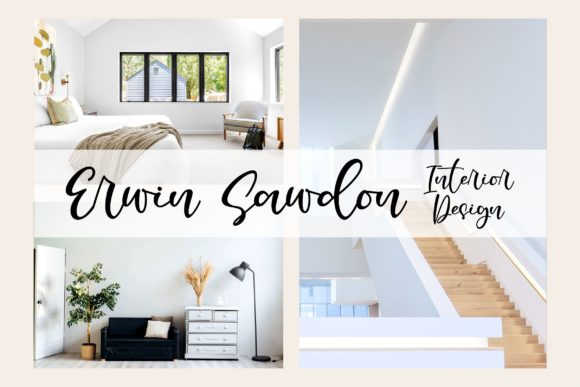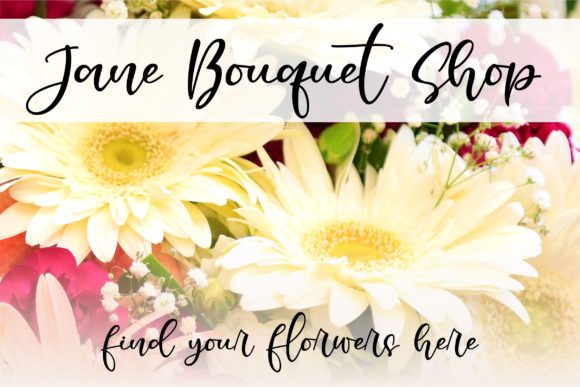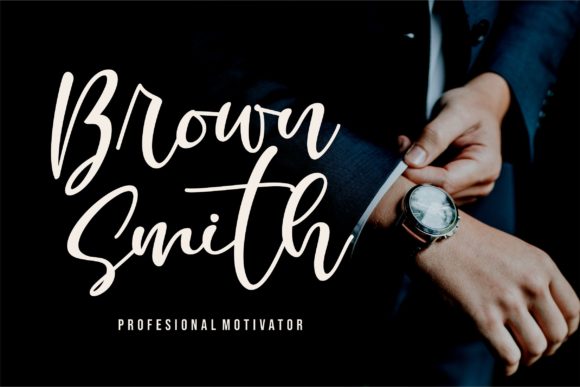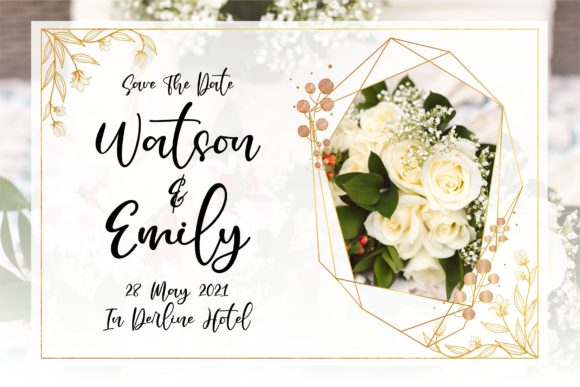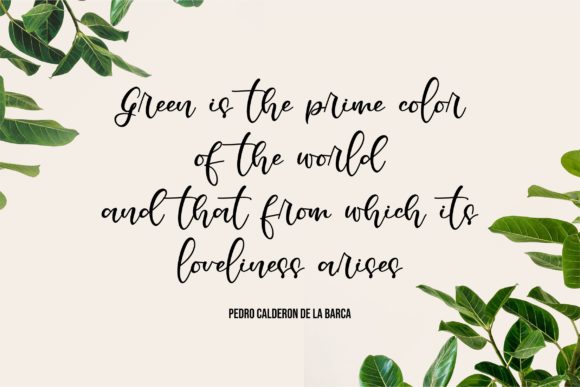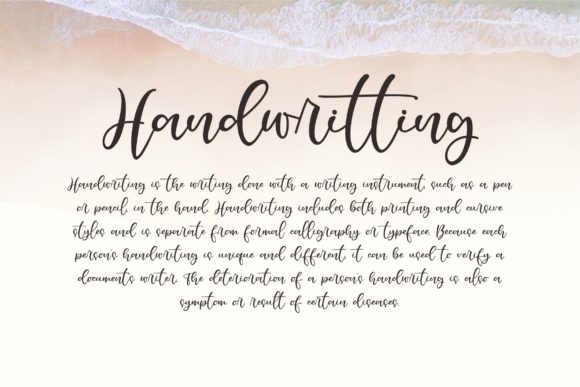
Introduction to Jerlista Siny Font
That’s where the Jerlista Siny Font comes in – a modern and elegant script font that’s perfect for adding a touch of sophistication to your designs. Whether you’re looking for fonts for Instagram, calligraphy scripts for DIY projects, or simply a high-quality design resource to elevate your creative work, Jerlista Siny Font is an excellent choice.
Key Features of Jerlista Siny Font
- Unique, hand-drawn design for creative projects and personal use.
- Perfect for designers looking for a high-quality, exclusive font to elevate their creative projects.
Honest Review: Jerlista Siny Font
I recently came across the Jerlista Siny Font and was excited to give it a try for my next creative project. Upon initial inspection, I was impressed with the clean and modern design. The font’s high quality is evident, making it a great addition to any design resource.
- ✨ High-quality design with a clean and modern aesthetic.
However, I did notice a few limitations with the Jerlista Siny Font. The font is limited to a specific set of characters, which may not be suitable for projects requiring extensive typography.
- ⚠️ Limited character set may not be suitable for all design needs.
- ⚠️ Some users may find the font to be too minimalist, lacking in character.
Overall, I was impressed with the Jerlista Siny Font, but it ultimately depends on the specific needs of your creative project. If you’re looking for a high-quality, modern font for a design resource, the Jerlista Siny Font is definitely worth considering.
Tips for Getting the Most Out of Jerlista Siny Font
To maximize the impact of Jerlista Siny Font, use it in conjunction with a transparent background to create a clean and minimalist design. Experiment with different font sizes, colors, and styles to find the perfect balance for your creative project.
Jerlista Siny Font is ideal for various design projects, including logo designs, branding materials, and marketing materials. Its high-quality design and transparent background make it a valuable resource for designers and creatives.